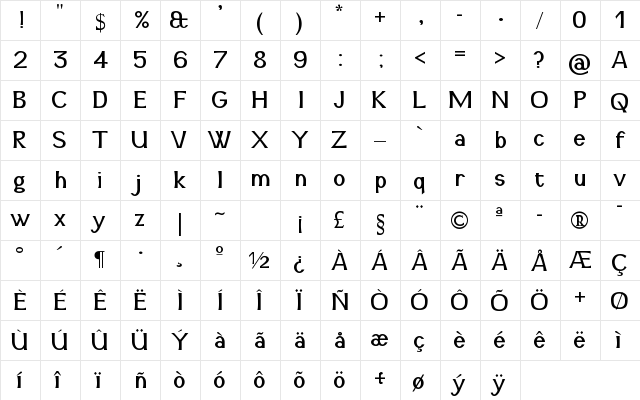
Snidane Regular
Design Context for Snidane Typeface
Snidane takes a measured approach to typography — its balanced proportions and neutral character make it a reliable workhorse for both digital and print work.
Pro Tip: Use Snidane in both headline and body roles to test its range before committing to a single application.